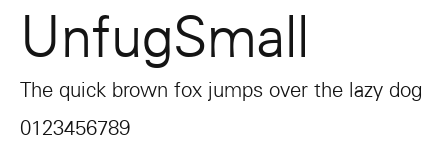
UnfugSmall Preview
• Font Name: UnfugSmall
• Font ID: Altsys Fontographer 4.0 UnfugSmall Normal
• Full Font Name: UnfugSmall Normal
• Version: Altsys Fontographer 4.0 10/2/93
• PostScript Name: UnfugSmallNormal
• Character Count: 244
About UnfugSmall.ttf
UnfugSmall.ttf is a modern, elegant sans-serif font designed for ultimate readability and visual harmony. Perfect for branding, headlines, web design, and print materials.